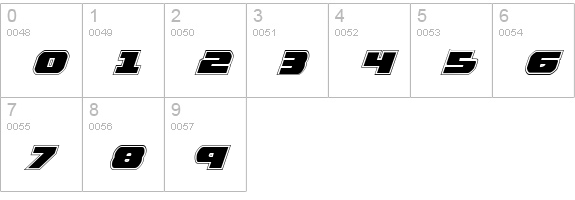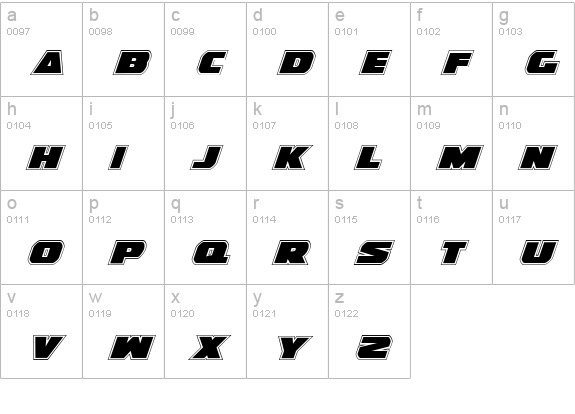
Guardian Pro Italic Font Details
Guardian Pro Italic is a distinctive, italic variant in the Guardian typeface family \xE2\x80\x94 well suited to design and typography projects.
Guardian Pro Italic is a sleek and sophisticated typeface that exudes elegance and professionalism. The italic style adds a touch of flair and modernity to any design project, making it perfect for branding, editorial work, and beyond. The flowing lines and subtle curves of Guardian Pro Italic create a sense of movement and dynamism, capturing the attention of the reader. The best part? Guardian Pro Italic is available for free download at FontsMarket.com. This means you can easily access this high-quality font without any cost, making it a valuable addition to your font library. Whether you're working on a website, print materials, or any other creative project, Guardian Pro Italic will elevate your design with its timeless appeal and versatility. Don't miss out on the opportunity to enhance your work with Guardian Pro Italic - download it for free today and experience the power of this exceptional font for yourself.